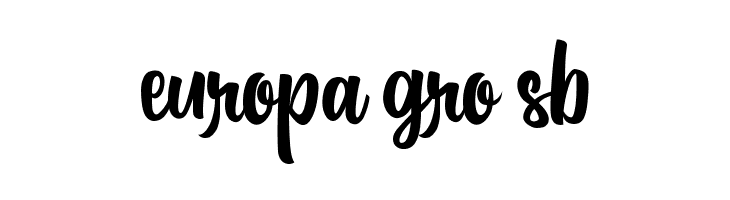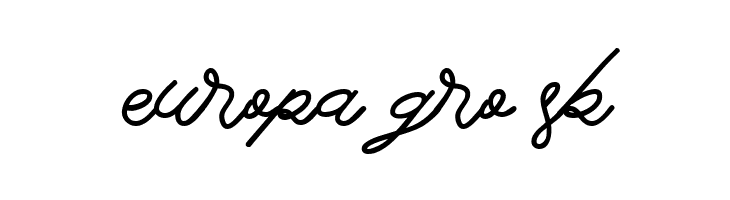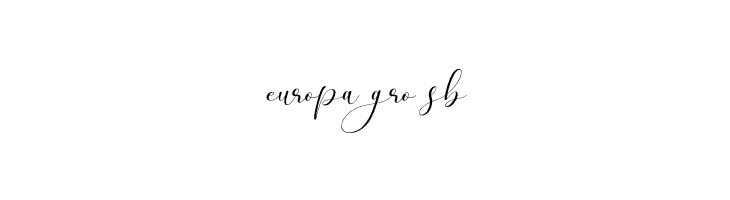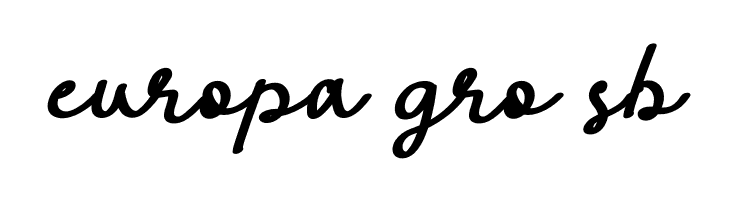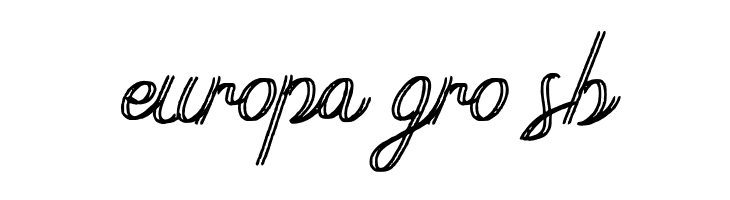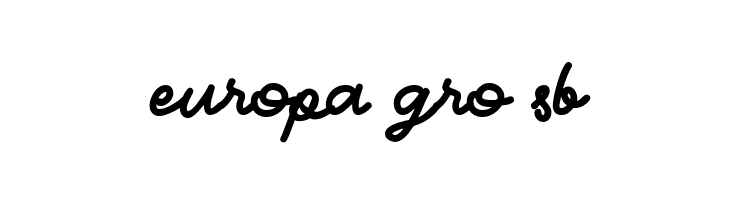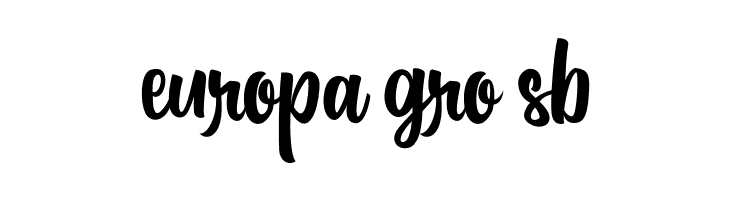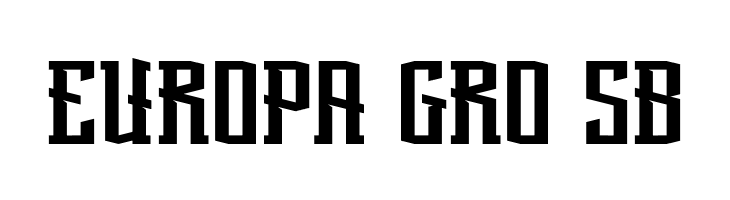
• Anterobot
A bold, angular font with a futuristic and industrial style.
• Antha
A cursive, handwritten font with smooth, flowing strokes.
• Antha LigatureSwash
A cursive font with elegant swashes and ligatures, offering a handwritten style.
• Anthalec
A modern, flowing script font with medium contrast and elegant curves.
• Anthalucya
A graceful script font with fluid, connected strokes and elegant style.
• AntharisDemo
A bold, flowing script font with a modern and playful style.
• AntharisDemo
A bold, playful script font with dynamic, flowing strokes.
• Anthea Personal Use ONLY
An elegant script font with flowing, interconnected letters and a calligraphic style.
• Anthello
A cursive, flowing script font with smooth, rounded strokes.
• Anthello
A playful and elegant script font with fluid, connected strokes.